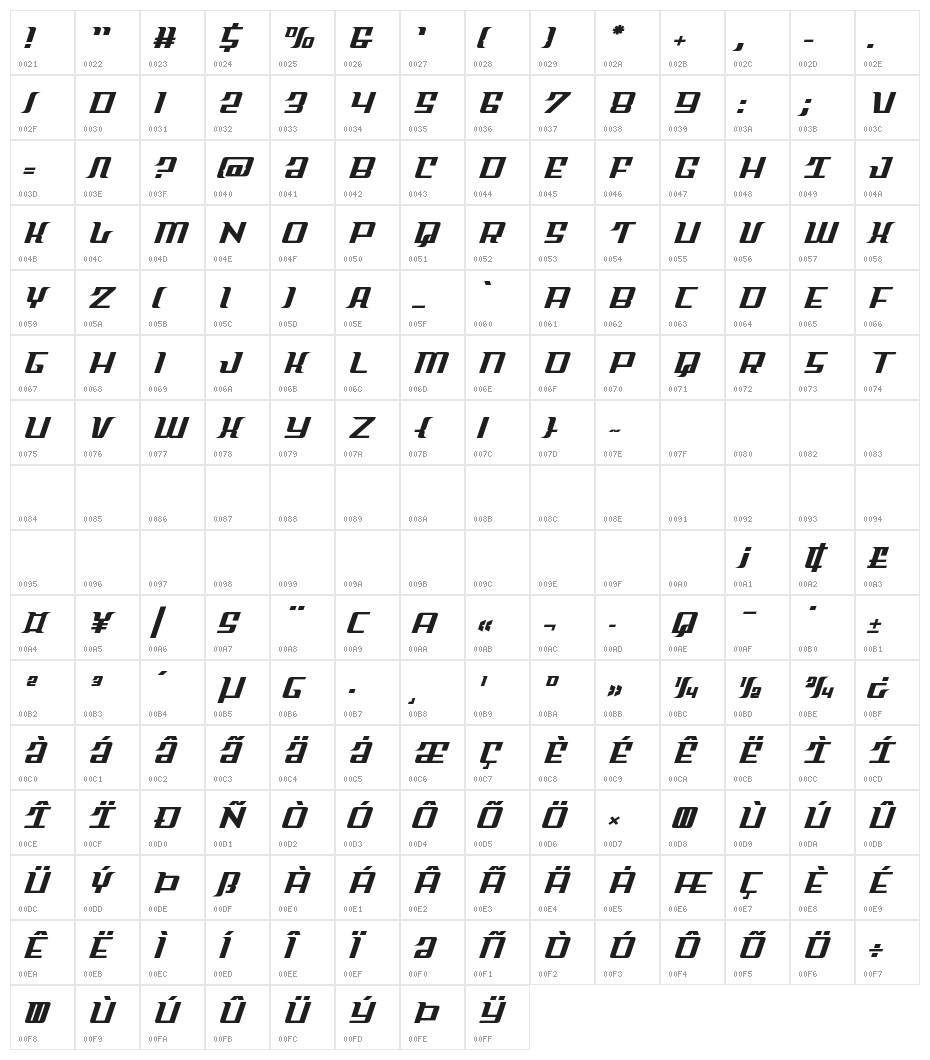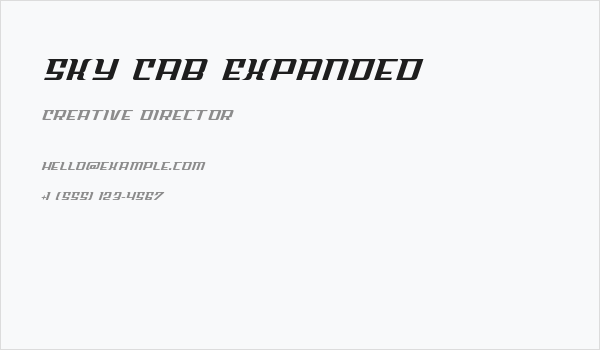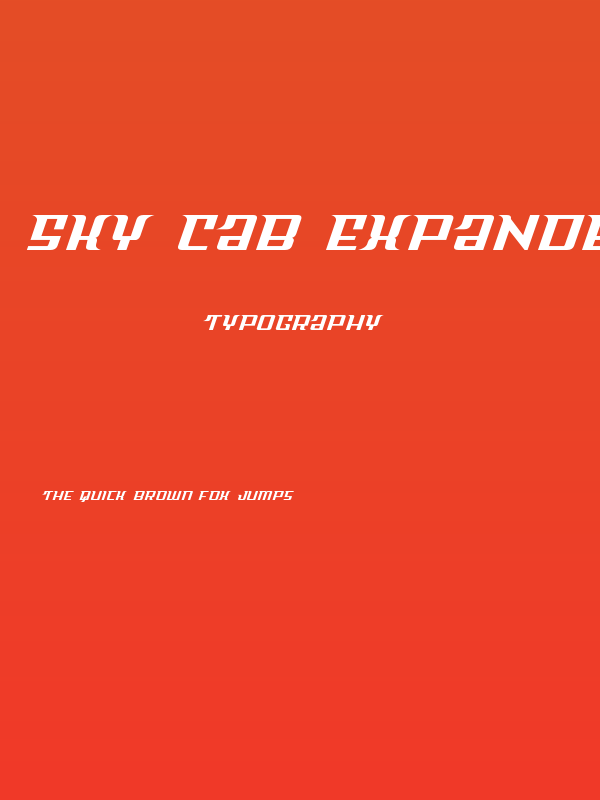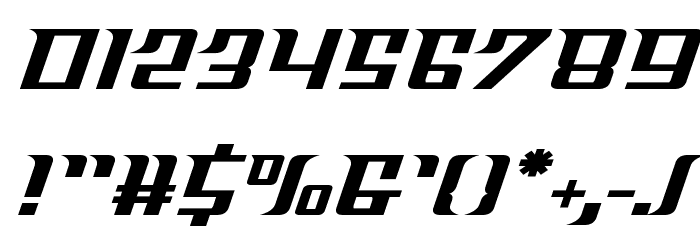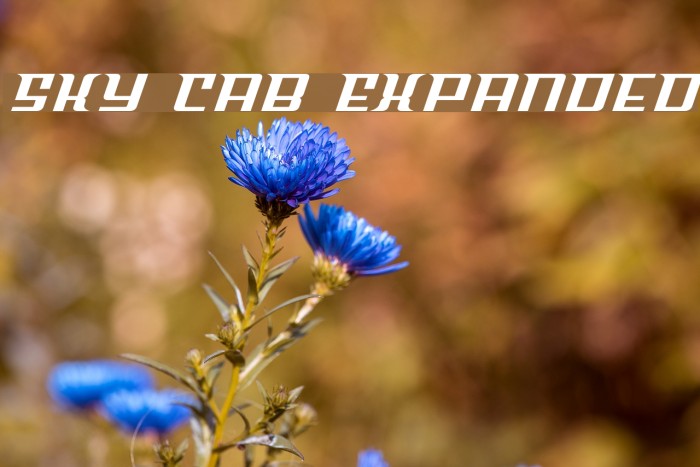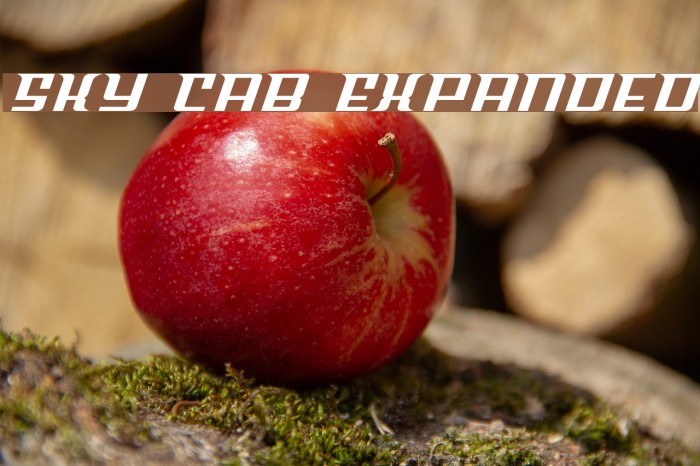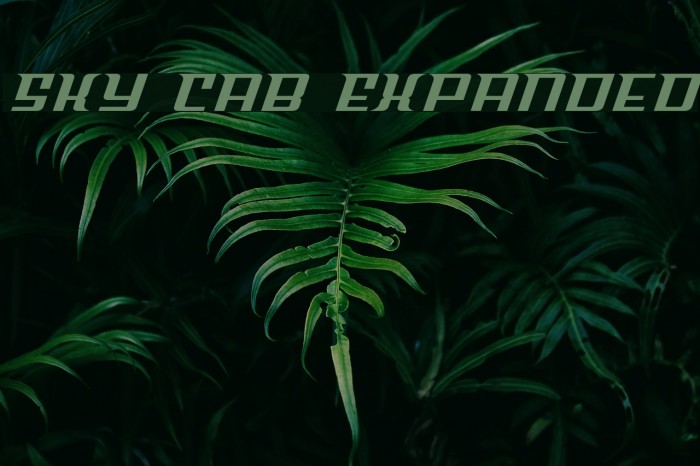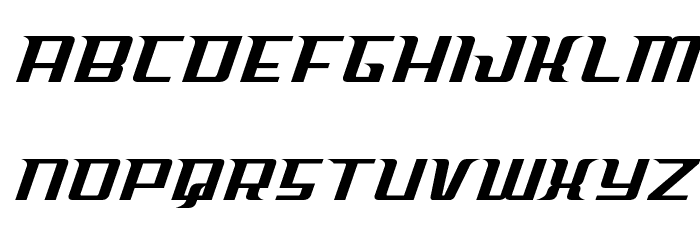
Sky Cab Expanded Font
Sky Cab Expanded Description
This font features a bold and dynamic style with a futuristic and sporty aesthetic. The characters are designed with sharp angles and a slightly italicized slant, giving them a sense of motion and speed. The strokes are thick and consistent, providing a strong visual impact. The font maintains a uniform width across all characters, contributing to a cohesive and structured appearance. The spacing between characters is tight, enhancing the compact and energetic feel of the typeface. This font is ideal for projects that require a modern and edgy look, such as sports branding, automotive designs, or tech-related graphics.